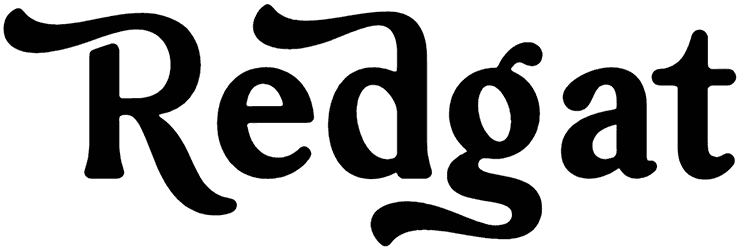
Redgat Font
The transition from plain text to something extraordinarily sweet and fun happens in just a click when you have the amusing characters of Redgat to get you covered the whole time. Just let your audience feel the sweet vintage appeal of this retro font, and they will be hooked for good.
Before you know it, your music class posters, dress store website banners, and bakery YouTube channels are set apart from anything else with those playful tails of this swash font.